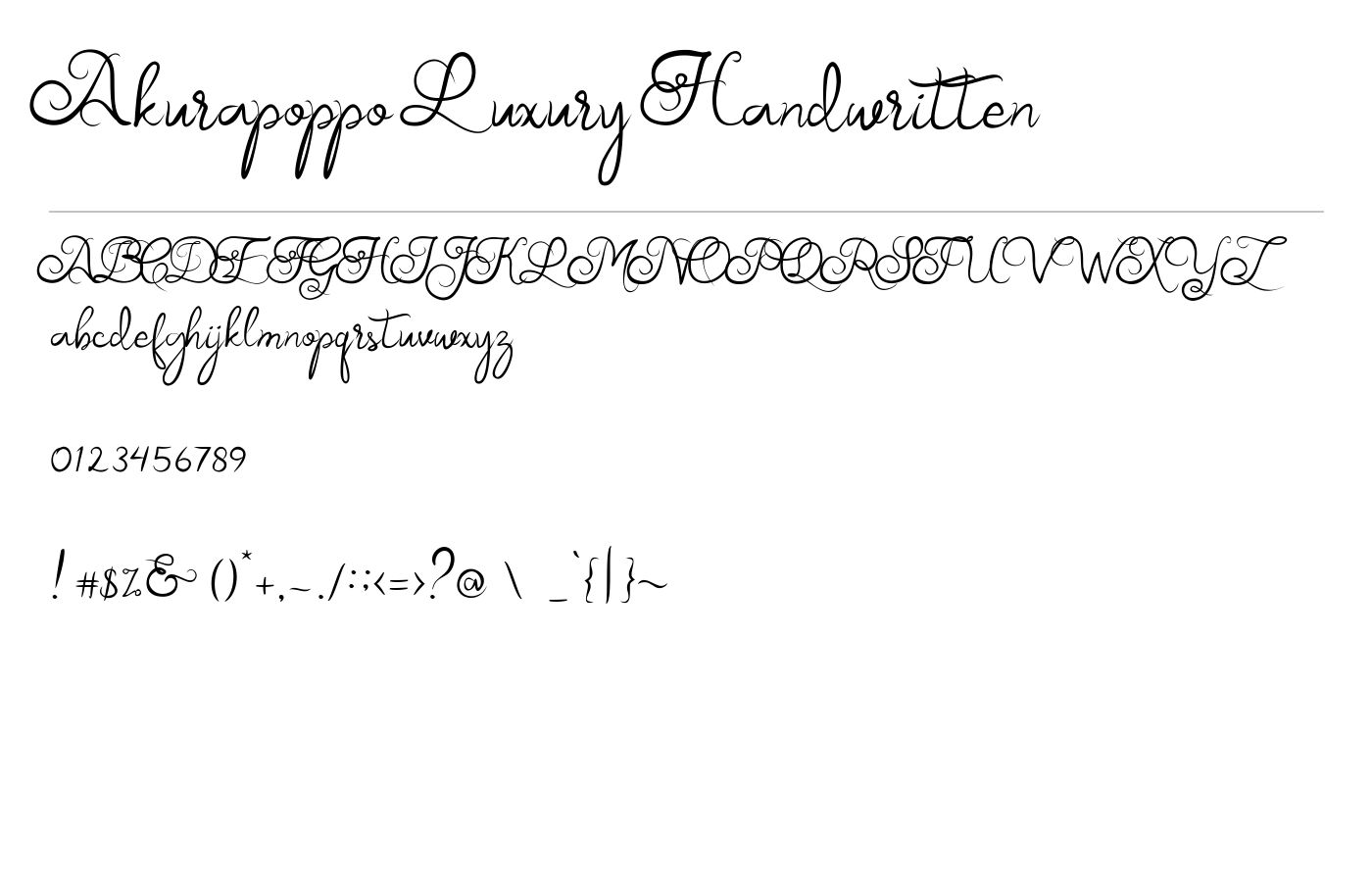
Akurapoppo Luxury Handwritten is an elegant script font featuring delicate, flowing letterforms with ornate swirls on uppercase characters and a graceful, slender feel in lowercase. Its refined and intricate style conveys sophistication and luxury, making it ideal for high-end branding, wedding invitations, and fashion-related designs where a personal, artistic touch is desired. This font works best in display settings like logos and headlines, where its decorative elegance can truly shine.
Akurapoppo Luxury Handwritten Font
About Akurapoppo Luxury Handwritten Font
| Font family | Akurapoppo Luxury Handwritten Font |
| Designer | Alifinart |